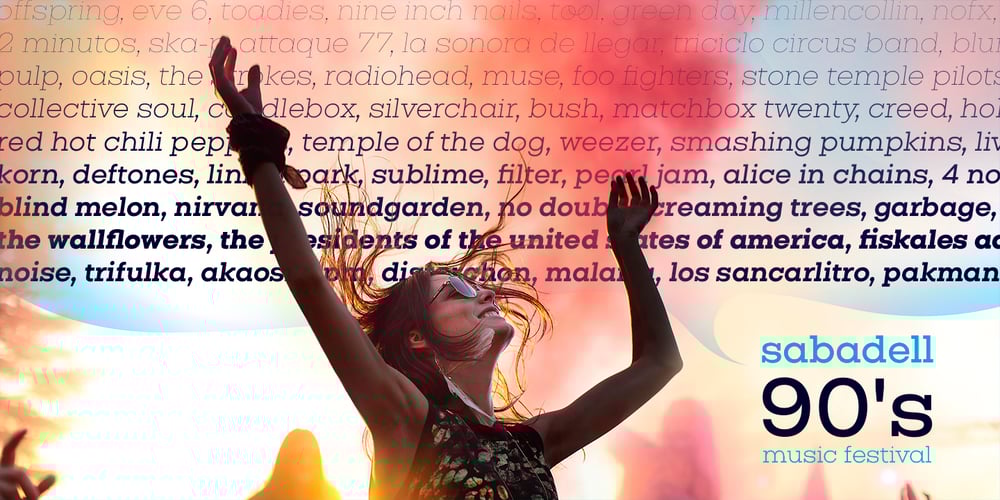
Vicky Font Family was designed by Juan Pablo De Gregorio and published by Letritas. Vicky contains 16 styles and family package options. Vicky is a slab serif typeface for headlines designed with geometric proportions. Like all slab serif typographies, it has a very particular strength and robustness. The peculiarity of its forms, as it was born from geometrical figures, creates a cascade of delicate details and inner analogies that make it unique. Vicky is a joyful, happy and shiny typography marked by delicate forms, but with a very strong character. It was born to be soulmate of Liliana, another geometric typeface by Juan Pablo De Gregorio. When working with Liliana and Vicky, together with a compatible chromatic work, you can quickly generate very showy results especially when working on short texts. Vicky is optimal for being used in marketing assets, packaging design, magazines, branding, film captions, headlines, editorial, quotes, logos, corporate identity, and motion graphics. The italic version has a 8-degree slant. This feature is intended to convey a gorgeous feeling of tension, power, and agility. It’s very interesting to realize how the dynamism in the italic characters works when combined with the regular ones. The typeface has 9 weights, ranging from “thin” to “heavy”, and two versions: “regular” and “italic”. Its 18 files contain 707 characters with ligatures, alternates, and swashes. It supports 219 Latin-based languages, spanning through 212 different countries. Vicky supports this languages: Abenaki, Afaan Oromo, Afar, Afrikaans, Albanian, Alsatian, Amis, Anuta, Aragonese, Aranese, Aromanian, Arrernte, Arvanitic (Latin), Asturian, Atayal, Aymara, Bashkir (Latin), Basque, Bemba, Bikol, Bislama, Bosnian, Breton, Cape Verdean Creole, Catalan, Cebuano, Chamorro, Chavacano, Chichewa, Chickasaw, Cimbrian, Cofán, Corsican Creek,Crimean Tatar (Latin),Croatian, Czech, Dawan, Delaware, Dholuo, Drehu, Dutch, English, Estonian, Faroese, Fijian Filipino, Finnish, Folkspraak, French, Frisian, Friulian, Gagauz (Latin), Galician, Ganda, Genoese, German, Gikuyu, Gooniyandi, Greenlandic (Kalaallisut)Guadeloupean, Creole, Gwich’in, Haitian, Creole, Hän, Hawaiian, Hiligaynon, Hopi, Hotc?k (Latin), Hungarian, Icelandic, Ido, IgboI, locano, Indonesian, Interglossa, Interlingua, Irish, Istro-Romanian, Italian, Jamaican, Javanese (Latin), Jèrriais, Kala Lagaw Ya, Kapampangan (Latin), Kaqchikel, Karakalpak (Latin), Karelian (Latin), Kashubian, Kikongo, Kinyarwanda, Kiribati, Kirundi, Klingon, Ladin, Latin, Latino sine Flexione, Latvian, Lithuanian, Lojban, Lombard, Low Saxon, Luxembourgish, Maasai, Makhuwa, Malay, Maltese, Manx, M?ori, Marquesan, Megleno-Romanian, Meriam Mir, Mirandese, Mohawk, Moldovan, Montagnais, Montenegrin, Murrinh-Patha, Nagamese Creole, Ndebele, Neapolitan, Ngiyambaa, Niuean, Noongar, Norwegian, Novial, Occidental, Occitan, Old Icelandic, Old Norse, Oshiwambo, Ossetian (Latin), Palauan, Papiamento, Piedmontese, Polish, Portuguese, Potawatomi, Q’eqchi’, Quechua, Rarotongan, Romanian, Romansh, Rotokas, Sami (Inari Sami), Sami (Lule Sami), Sami (Northern Sami), Sami (Southern Sami), Samoan, Sango, Saramaccan, Sardinian, Scottish Gaelic, Serbian (Latin), Seri, Seychellois Creole, Shawnee, Shona, Sicilian, Silesian, Slovak, Slovenian, Slovio (Latin), Somali, Sorbian (Lower Sorbian), Sorbian (Upper Sorbian), Sotho (Northern), Sotho (Southern), Spanish, Sranan, Sundanese (Latin), Swahili, Swazi, Swedish, Tagalog, Tahitian, Tetum, Tok Pisin, Tokelauan, Tongan, Tshiluba, Tsonga, Tswana, Tumbuka, Turkish, Turkmen (Latin), Tuvaluan, Tzotzil, Uzbek (Latin), Venetian, Vepsian, Volapük, Võro, Wallisian, Walloon, Waray-Waray, Warlpiri, Wayuu, Welsh, Wik-Mungkan, Wiradjuri, Wolof, Xavante, Xhosa, Yapese, Yindjibarndi, Zapotec, Zulu, Zuni.